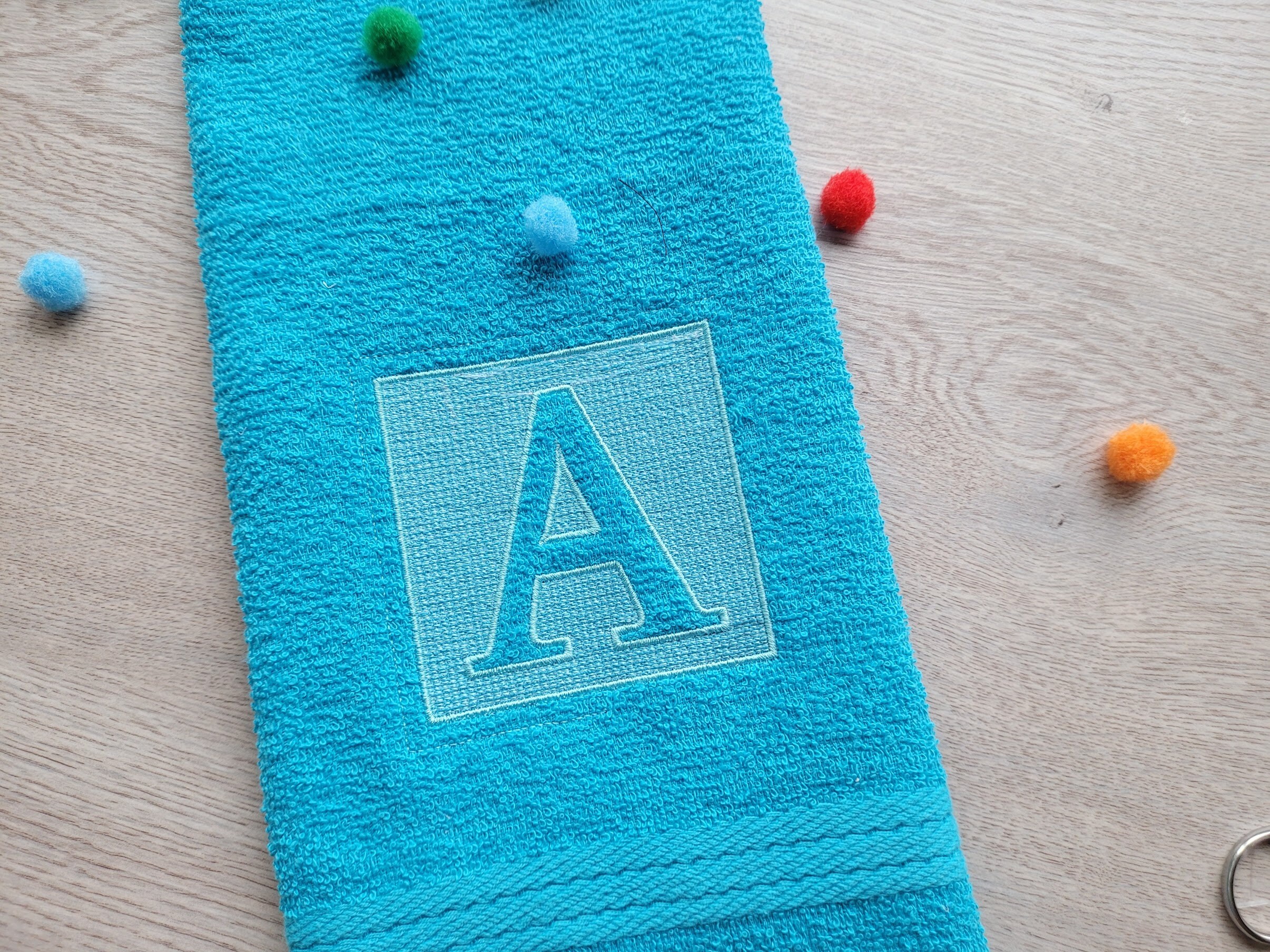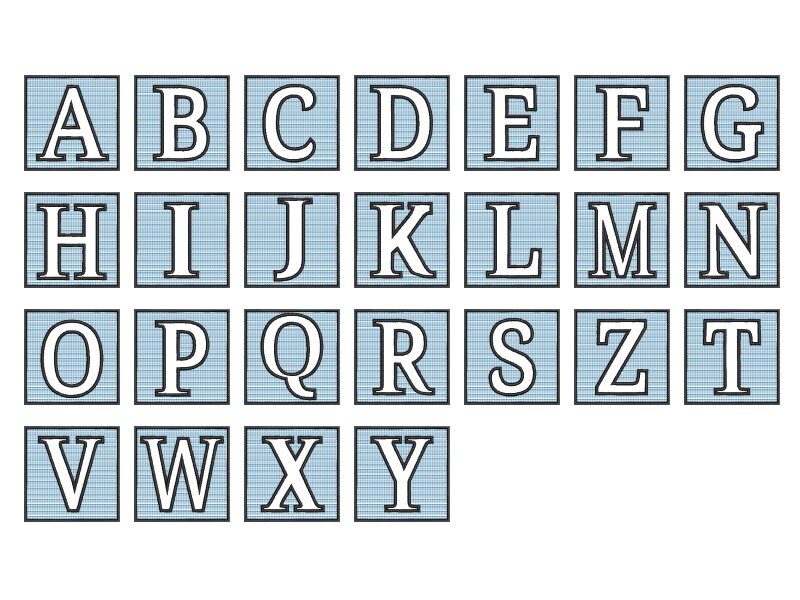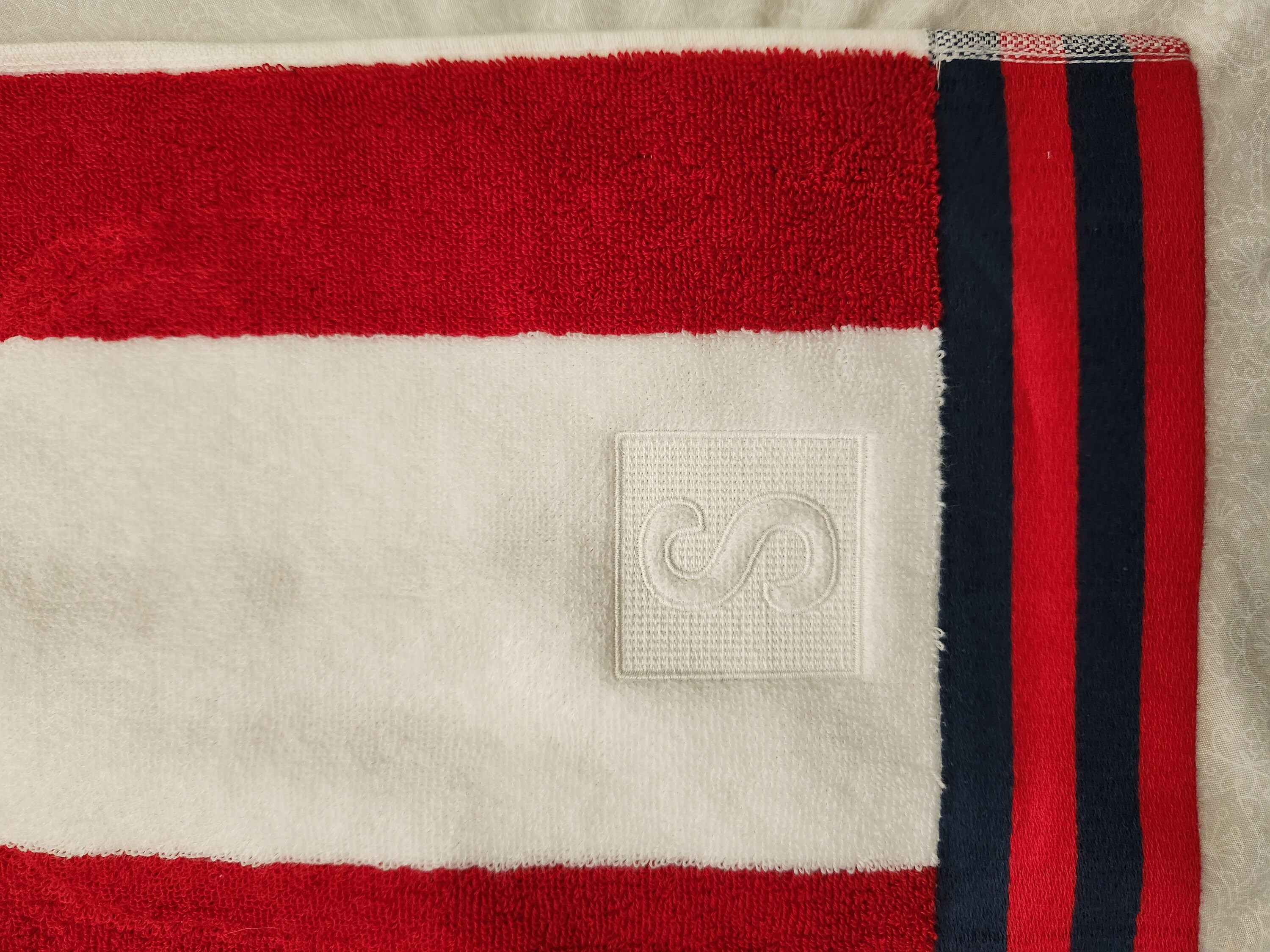
Embossed square shape Monogram Towel machine embroidery designs A-Z assorted sizes terry towel gift idea boy man dad wedding family bathroom
Lässt sich super sticken und schaut auch noch wahnsinnig toll aus. Das L ist zwar ein wenig schief, aber das kann man verkraften.
Came out amazing! The digitizing was great, the stitch out was easy, minimal jump stitches, and I just used the default tension on my machine. The seller quickly responded to my question about stabilizers, and I followed the directions (tear away+water soluble topper) exactly, with perfect results on 2 beach towels.
Stitched out beautifully, but a few of the letters are not perfectly centered vertically.